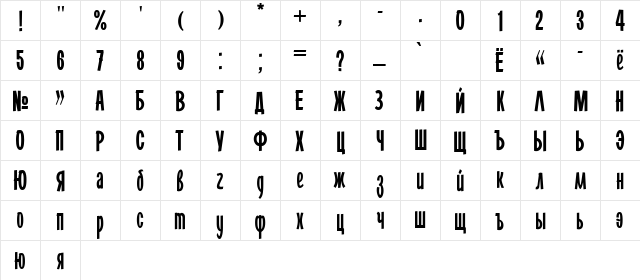
SVOBODA Regular
Design Context for SVOBODA Typeface
SVOBODA takes a measured approach to typography — its balanced proportions and neutral character make it a reliable workhorse for both digital and print work.